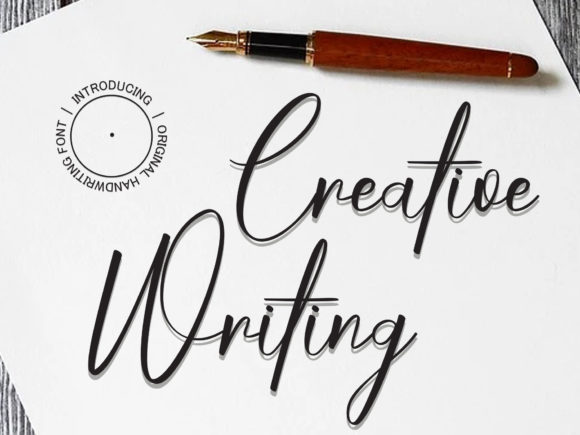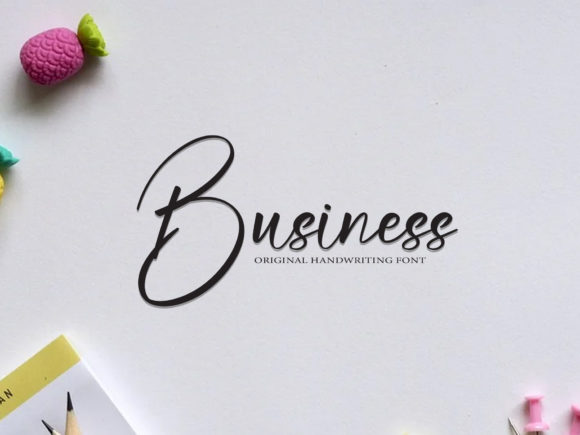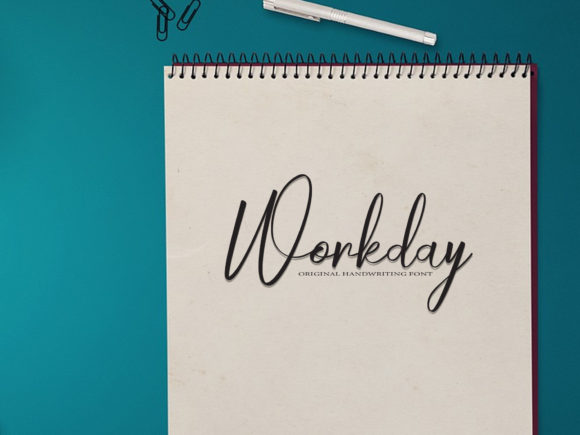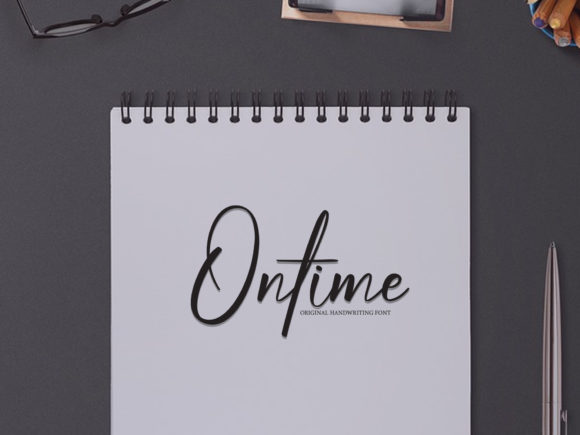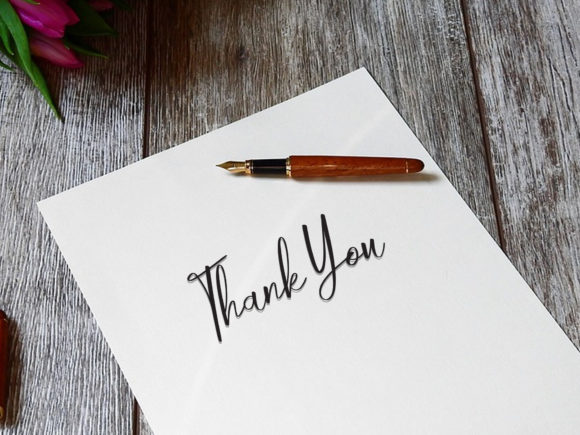
Creative Writing Font
Creative Writing Font: A Handcrafted Script for Artistic Designs
The Creative Writing font is a finely-crafted handwritten typeface that brings charm to various designs. It works well for letters, invitations, product labels, and more.
Elegant Correspondence with Creative Writing
In letters, this font adds a personal touch. Its fluid strokes create an organic feel, making your words warm and sincere. It’s great for both personal notes and work emails.
Stylish Invitations Using Creative Writing
For invitations, Creative Writing offers a sophisticated look. Its delicate lines make invites appealing and personal, perfect for weddings or parties.
Versatility of Creative Writing Font
On food products, this font shines in labels and packaging. It gives a handmade feel, showing care and quality. It’s ideal for artisanal food labels.
Creative Writing in Graphic Design
The font’s use goes beyond letters and food labels. It fits many creative projects, from logo design to social media posts. Using Creative Writing can boost your designs with character and style.
Conclusion: A Font for Artistic Expression
Creative Writing is a thoughtful font design. It adds a special touch to many projects. The font expresses elegance and warmth. It’s useful for making eye-catching letters, invites, and labels. For personal or work projects, it lifts designs to new creative heights.